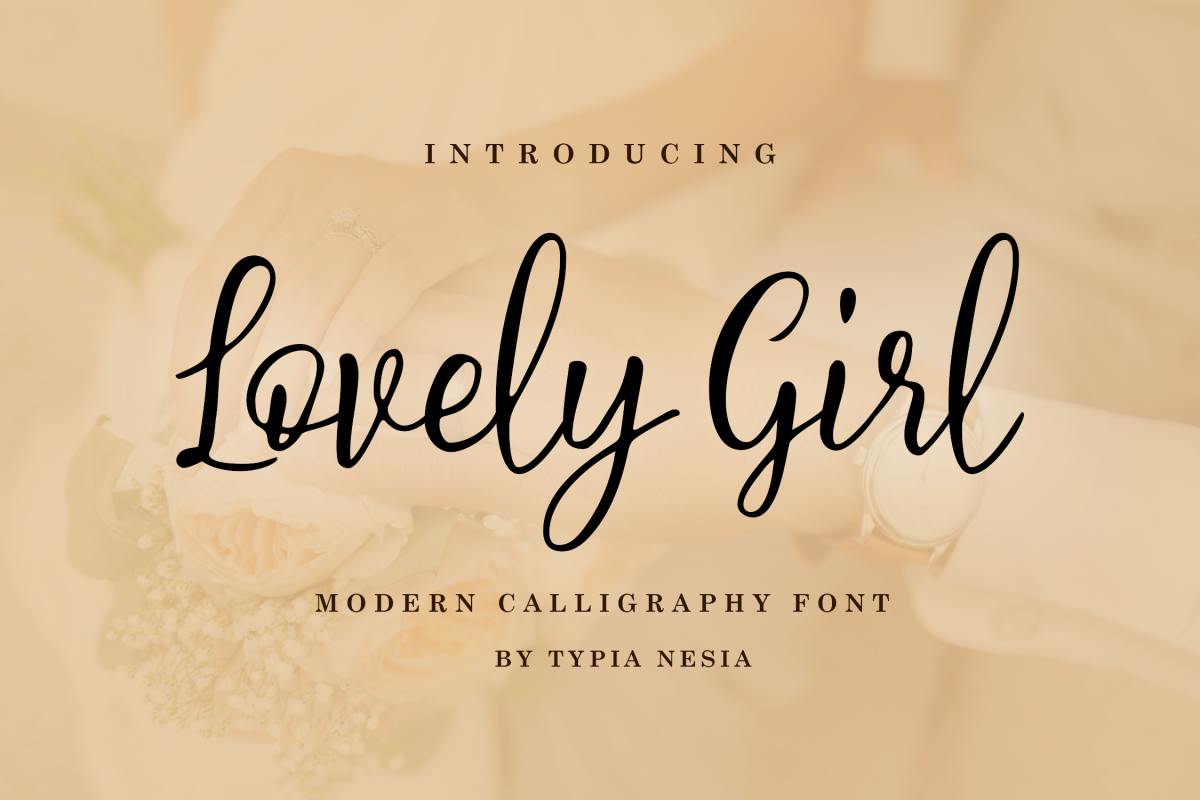
Lovely Girl is a Romantic Handmade Brush Calligraphy Script Font.
The imperfect flow and easy handwritten style works perfectly on invitations, blog headers, branding, art quote, book / cover Title, and so much more!
Typia Nesia Studio
Lovely Girl